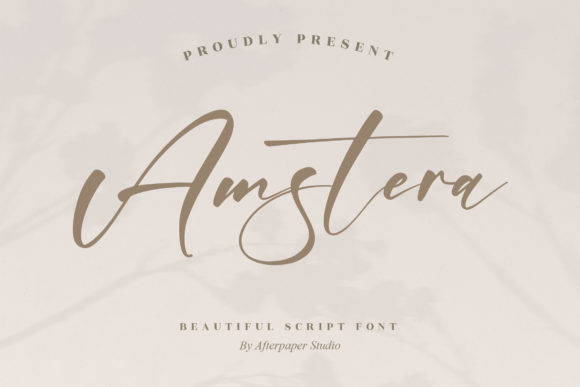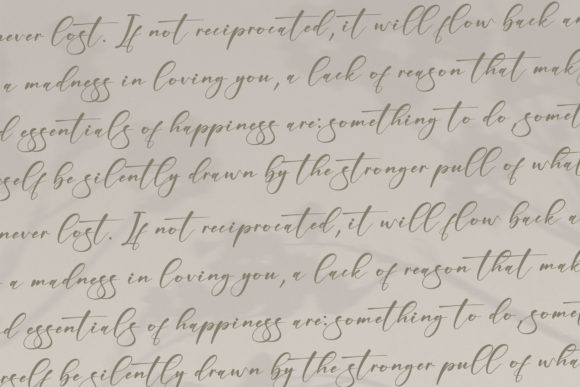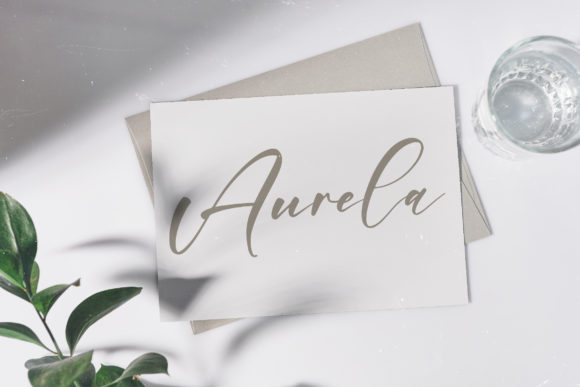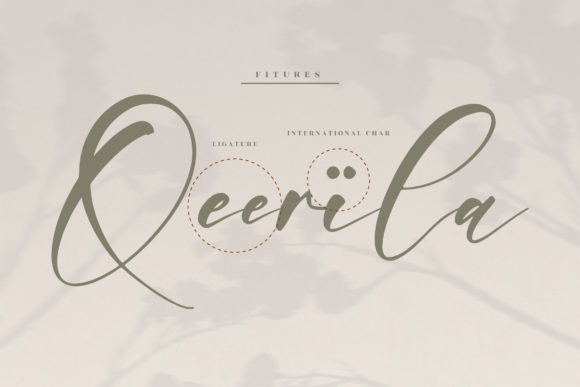
Amstera Font
About Amstera Font
Amstera is a flowing and script font. Fall for its ravishing style and use it to create gorgeous wedding invitations, beautiful stationary art, eye-catching social media posts, and much more!